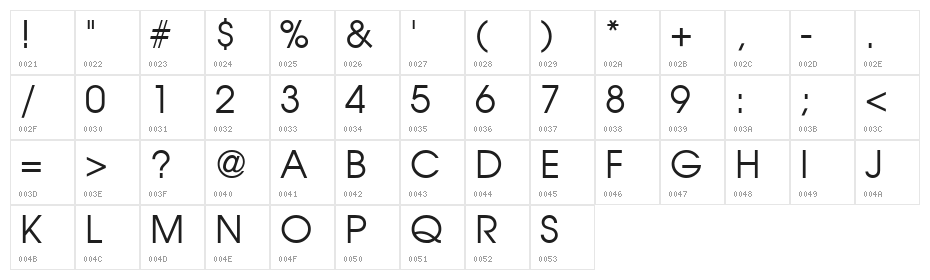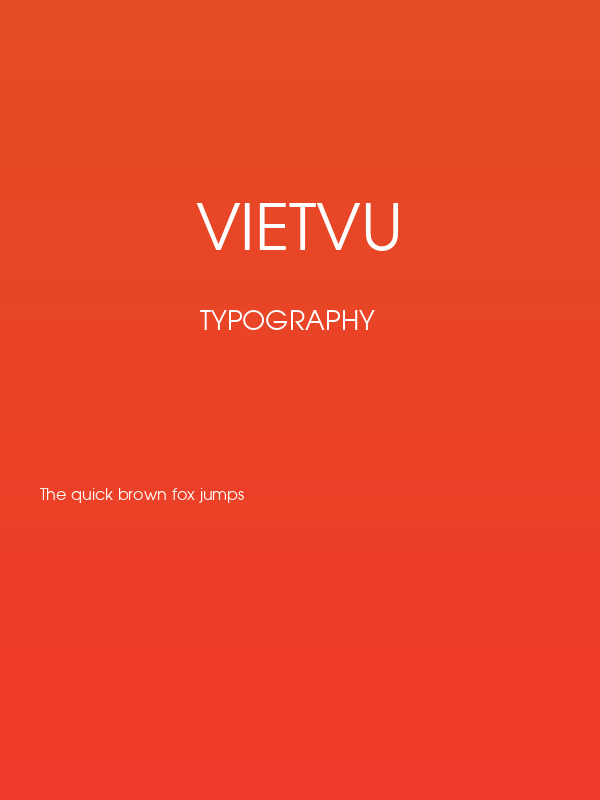
VietVu Font
✎ Sans Serif
| Категория | Sans Serif |
| Область применения | Headlines, Body text, Logos |
| Рекомендуемые проекты | Ideal for branding, advertising, web design, and editorial layouts due to its modern and clean appearance. |